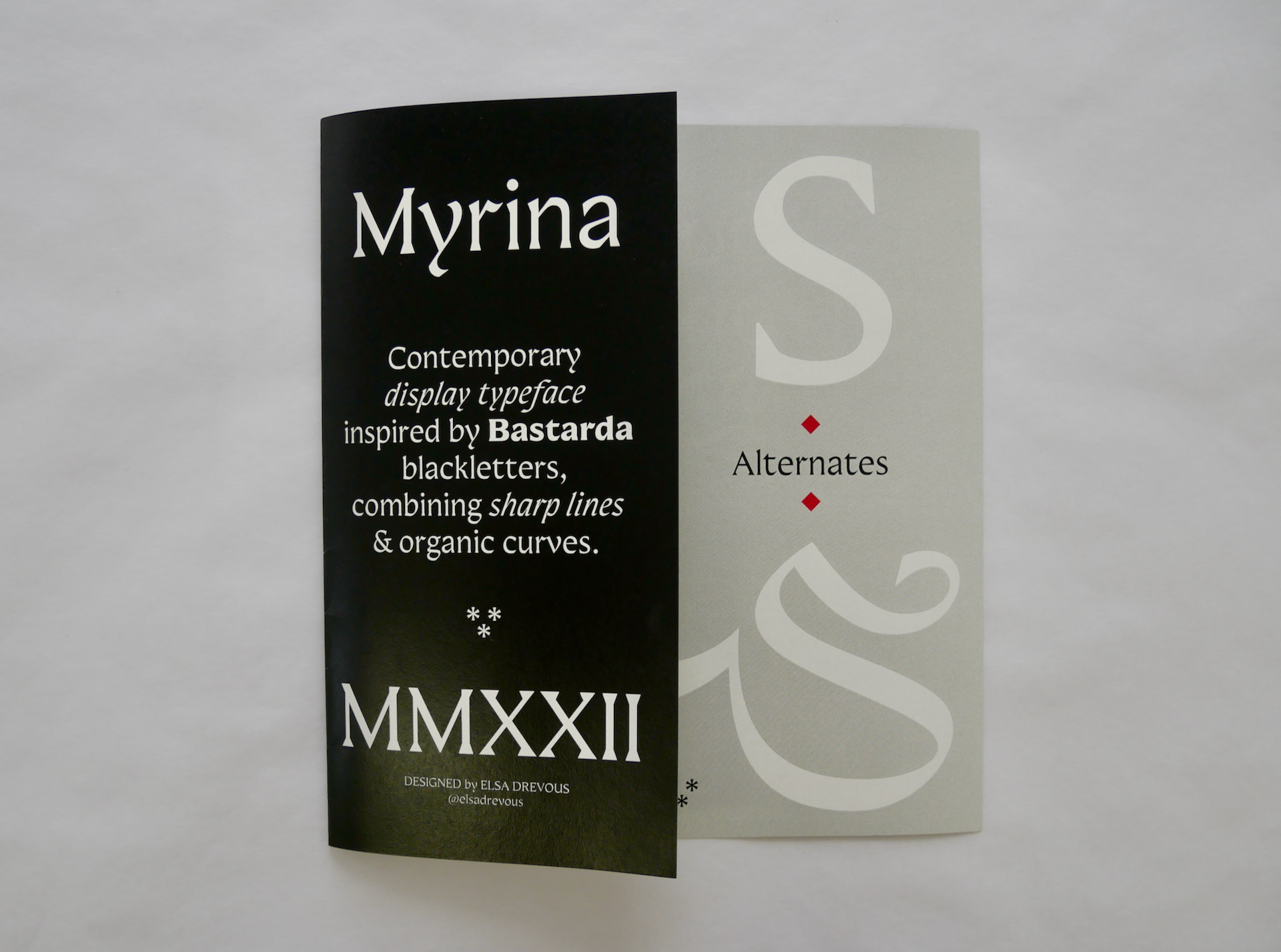
Myrina
Myrina is a display typeface with 5 weights, ranging from Light to Black, with an Italic version. It is largely inspired by the Bastarda blackletters.
As a starting point for my brief, I decided to create a display typeface for a fashion designer brand, that creates clothing and accessories made of chainmail.
Featuring this medieval material to represent feminine empowerment and strength was the driving concept of the design. The global identity results in a powerful designs, creating a fusion of medieval history with a contemporary approach.
The name of the typeface comes from Greek mythology. Myrina was a queen of the Libyan Amazons. According to Diodorus, the Libyan Amazons were the most ancient of all, and preceded the arrival of the Amazons of Asia Minor. They would have surpassed them in their exploits but their nation died out several centuries before the Trojan war.
The Myrina typeface combines organic shapes and calligraphic curves, with minimalist lines and sharp angles. The structure of the letters follows a broad nib pen ductus, resulting of strong contrasts. The type family also features 26 alternates caps (from Light to Black) created with lively calligraphic shapes. These special glyphs allow the graphic designers to play with an infinite combination of letter layouts—such as accessories in the fashion industry. These alternates have been created to add a strong gothic identity, with a unique, extravagant touch.
Creating the alternates was one of the most challenging parts of the process; trying to find wild shapes while keeping consistency with the regular glyphs was not easy. The other challenge was to find the right balance between having an angular and contrasted font, without ending up with too-complex letters.